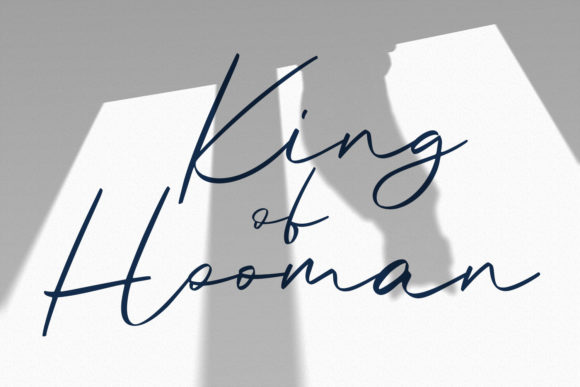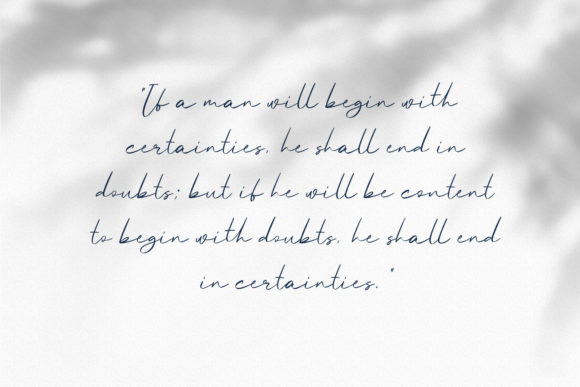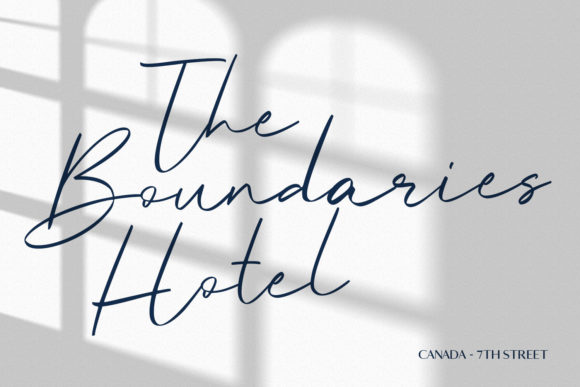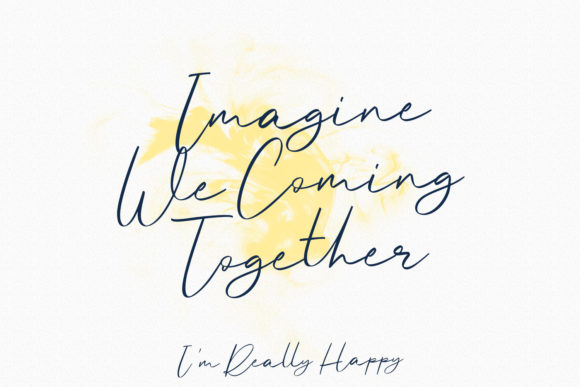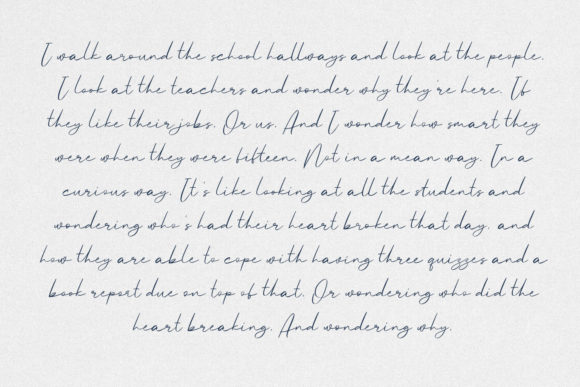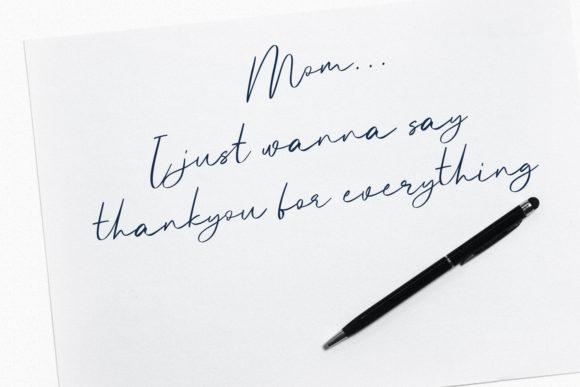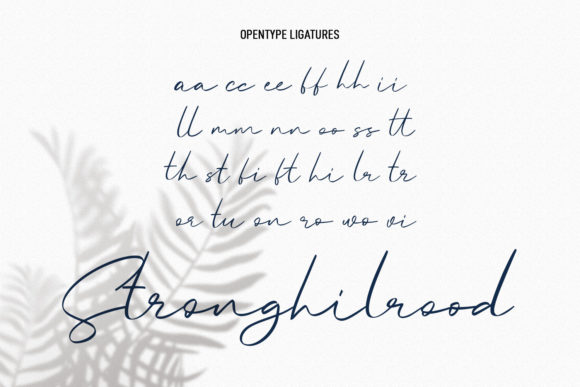
Oxyless Script Font
About Oxyless Script Font
Oxyless Script is a beautiful and refined script font. It has a classy, elegant and modern look that can be used for logos, branding, invitations, stationery, wedding designs, social media posts, and much more!